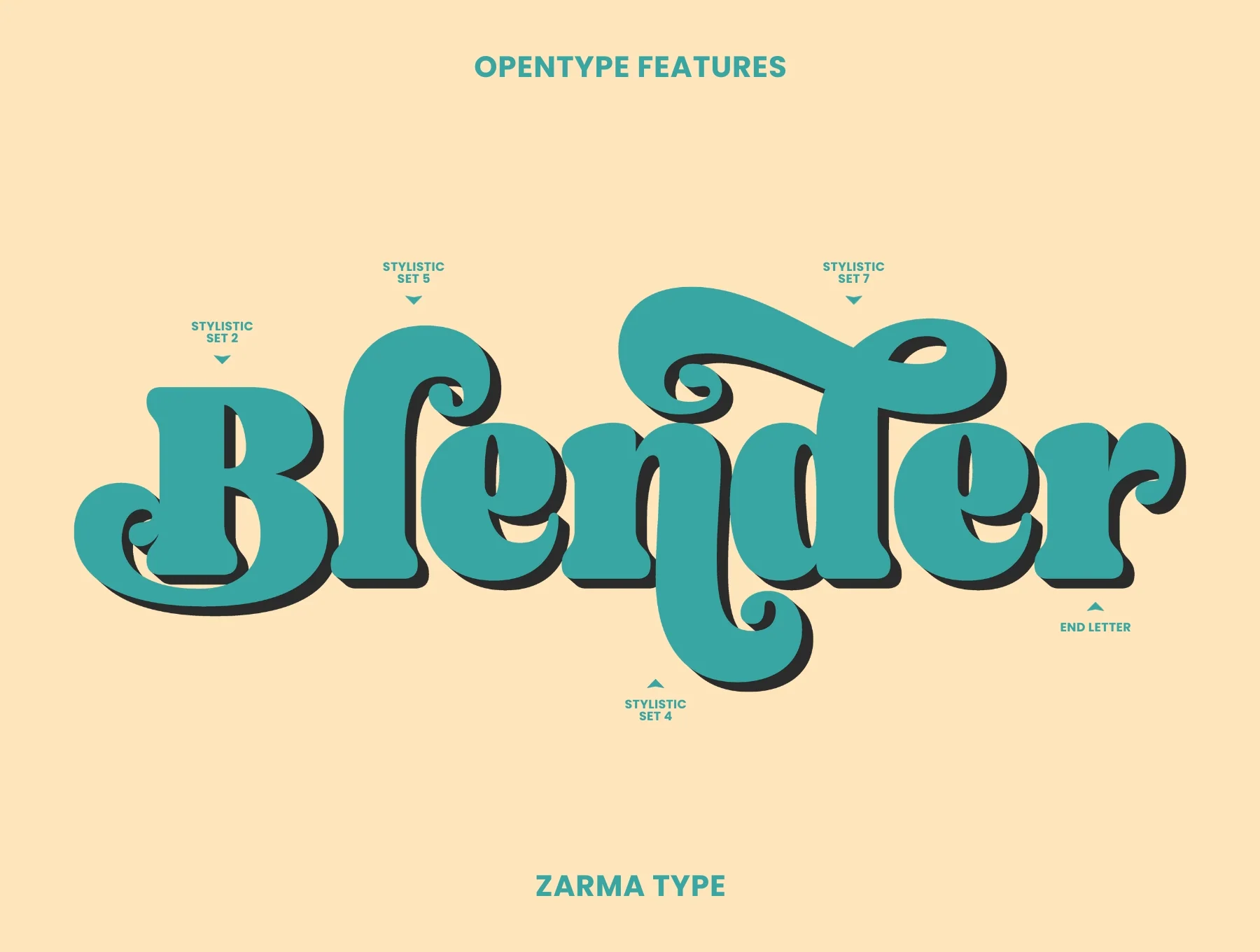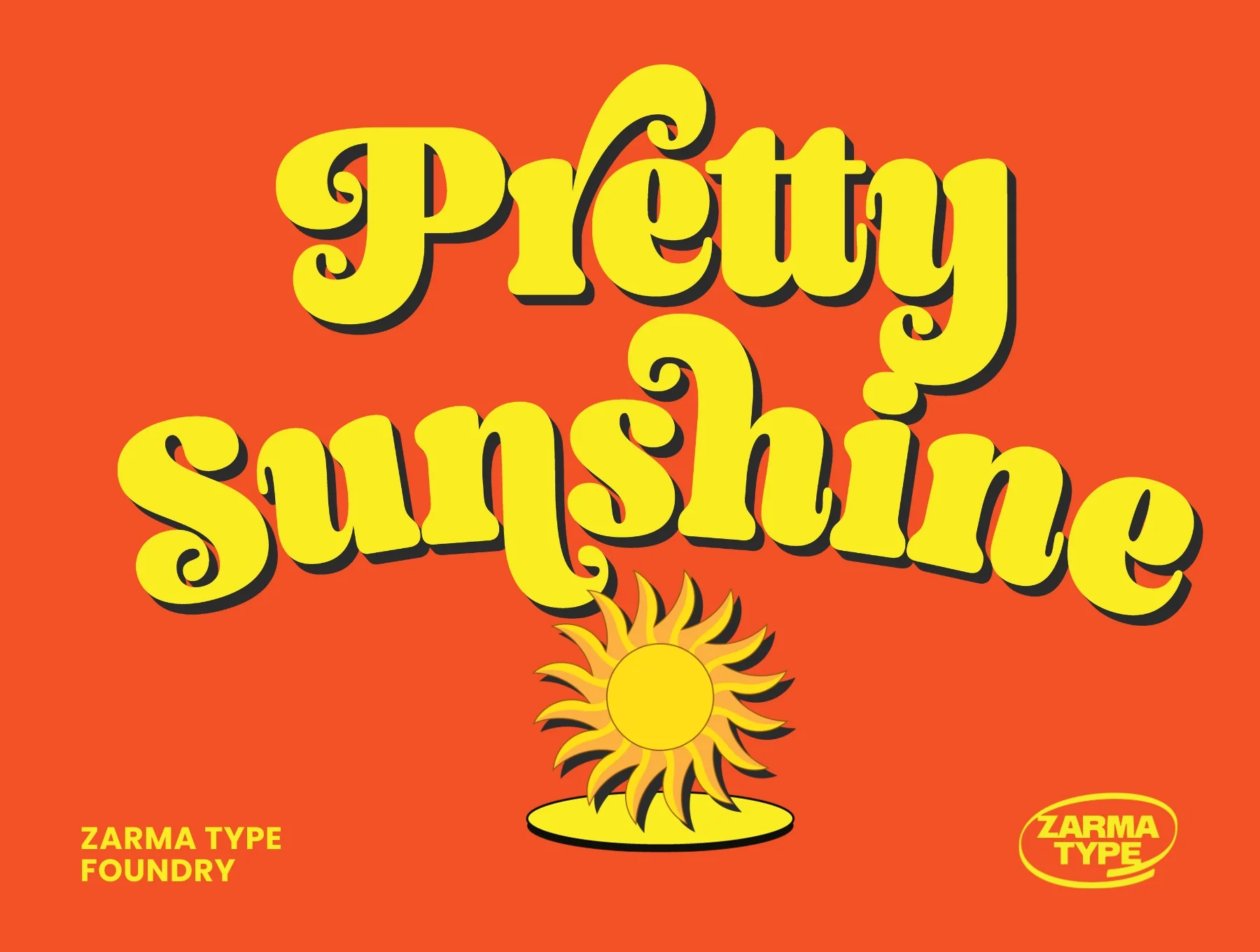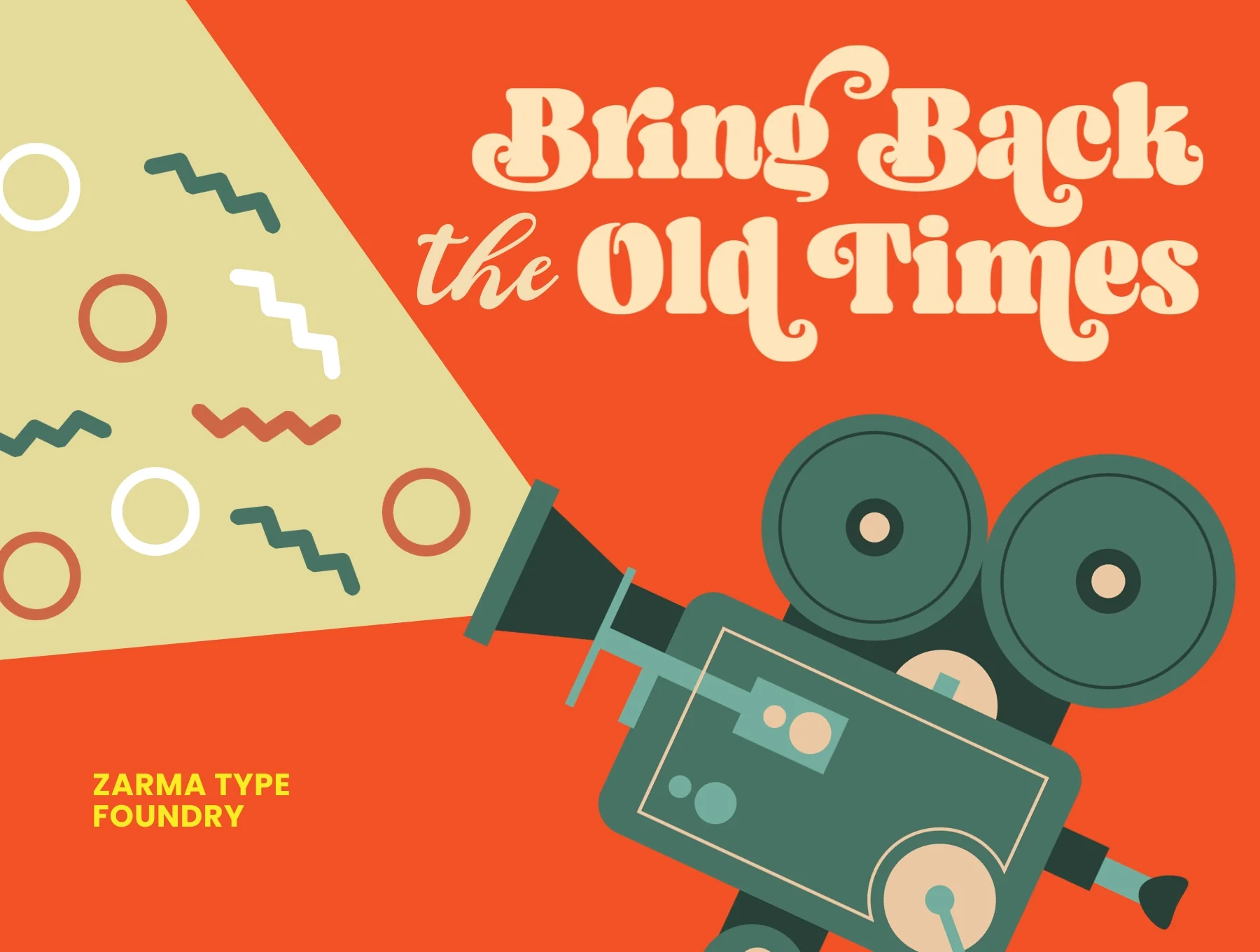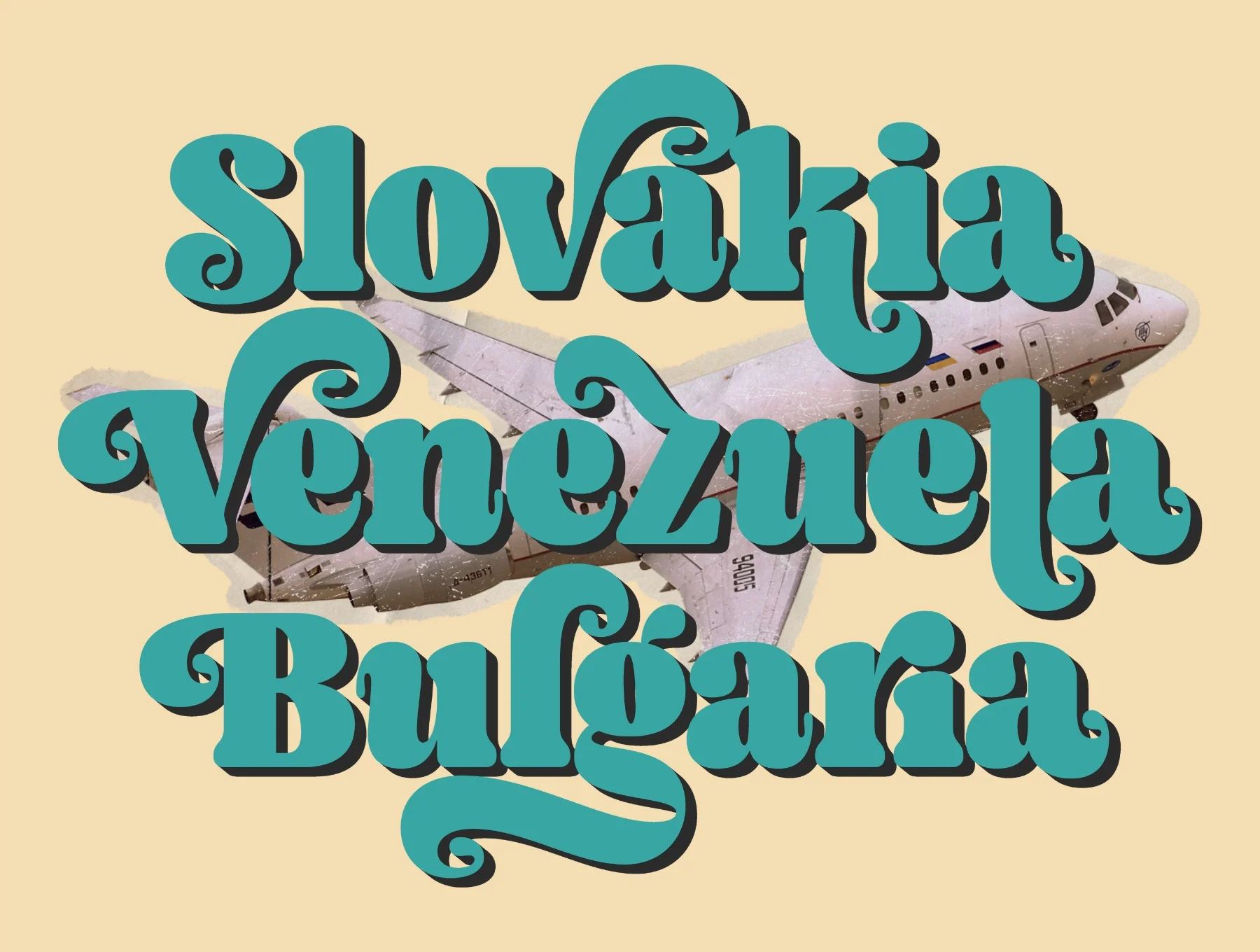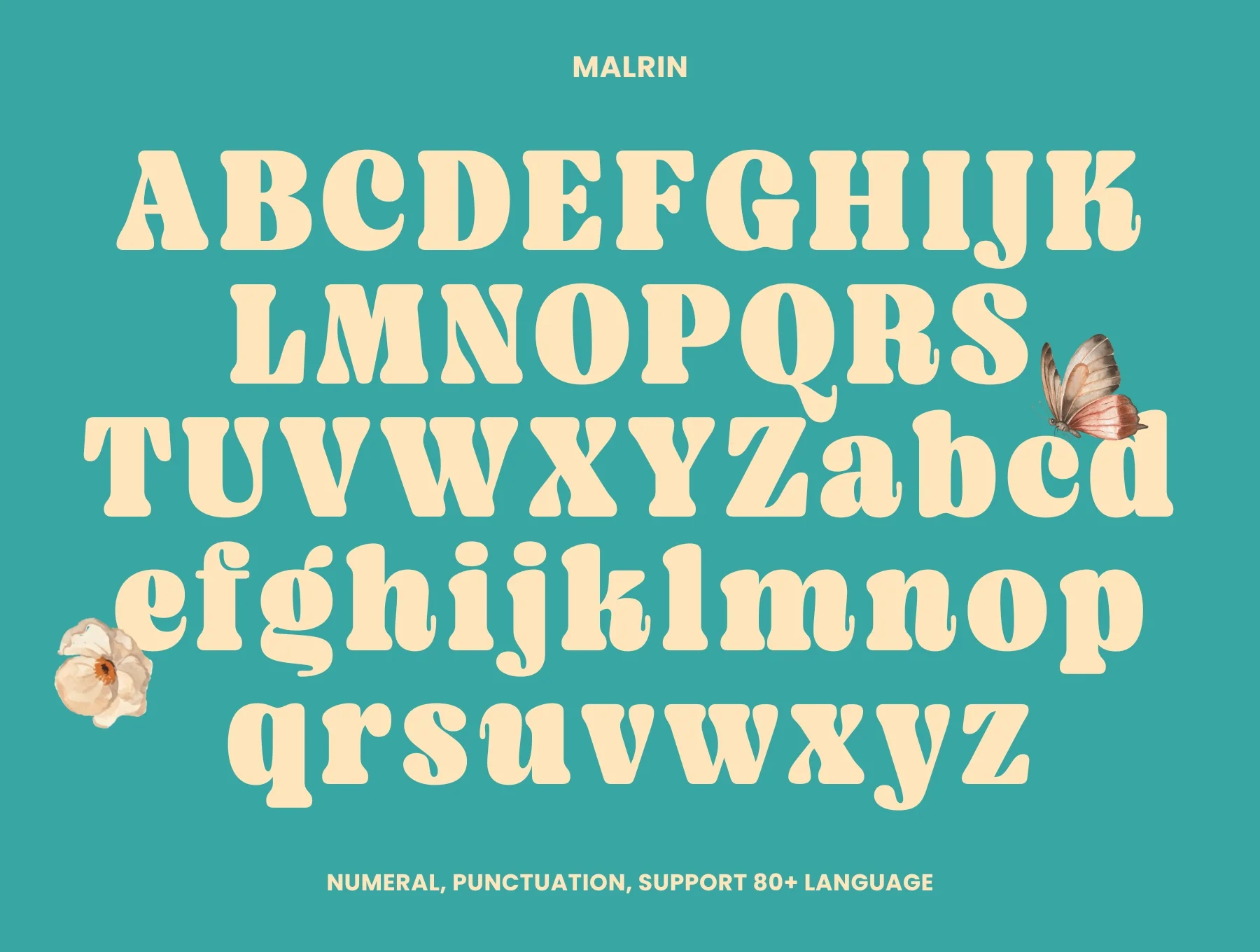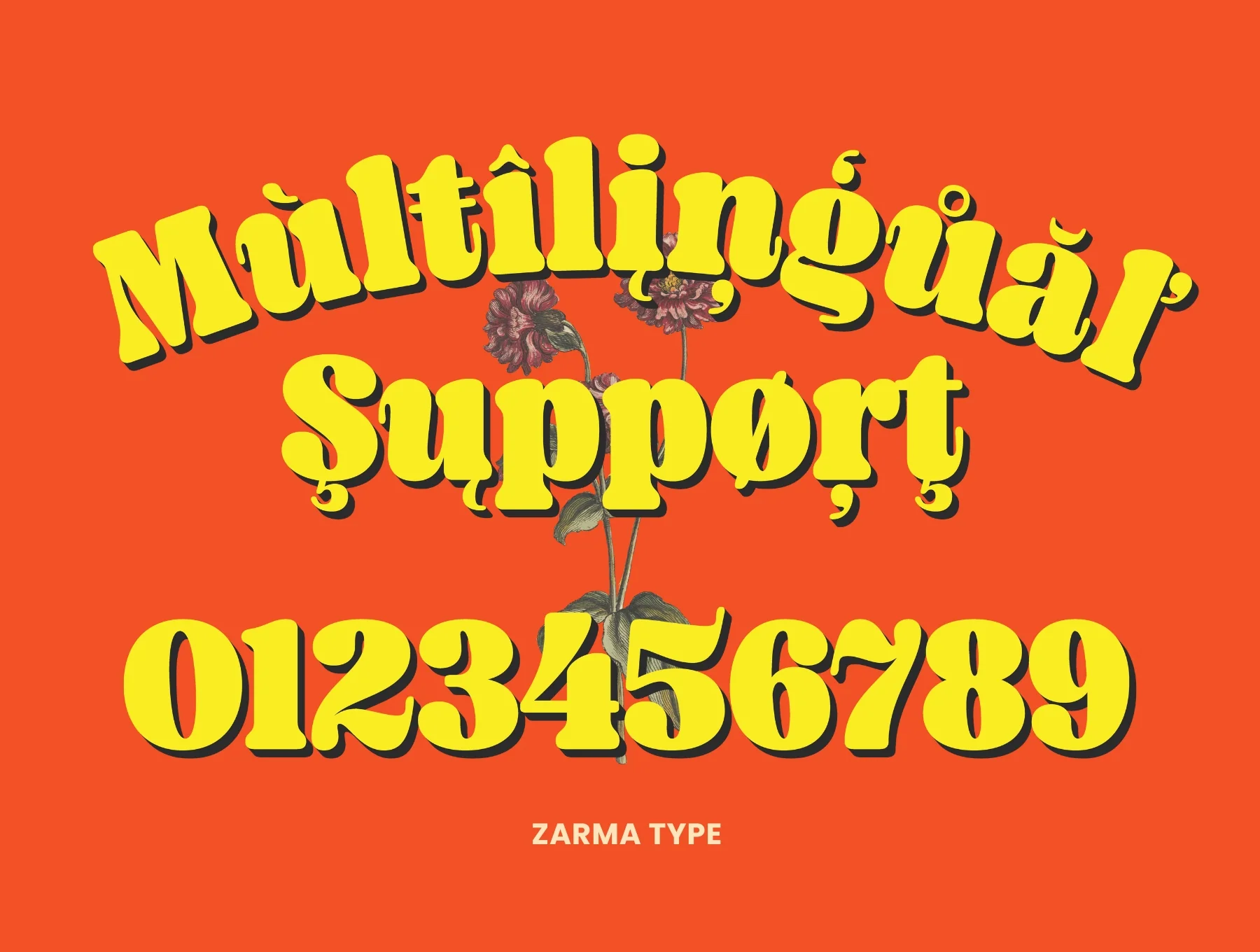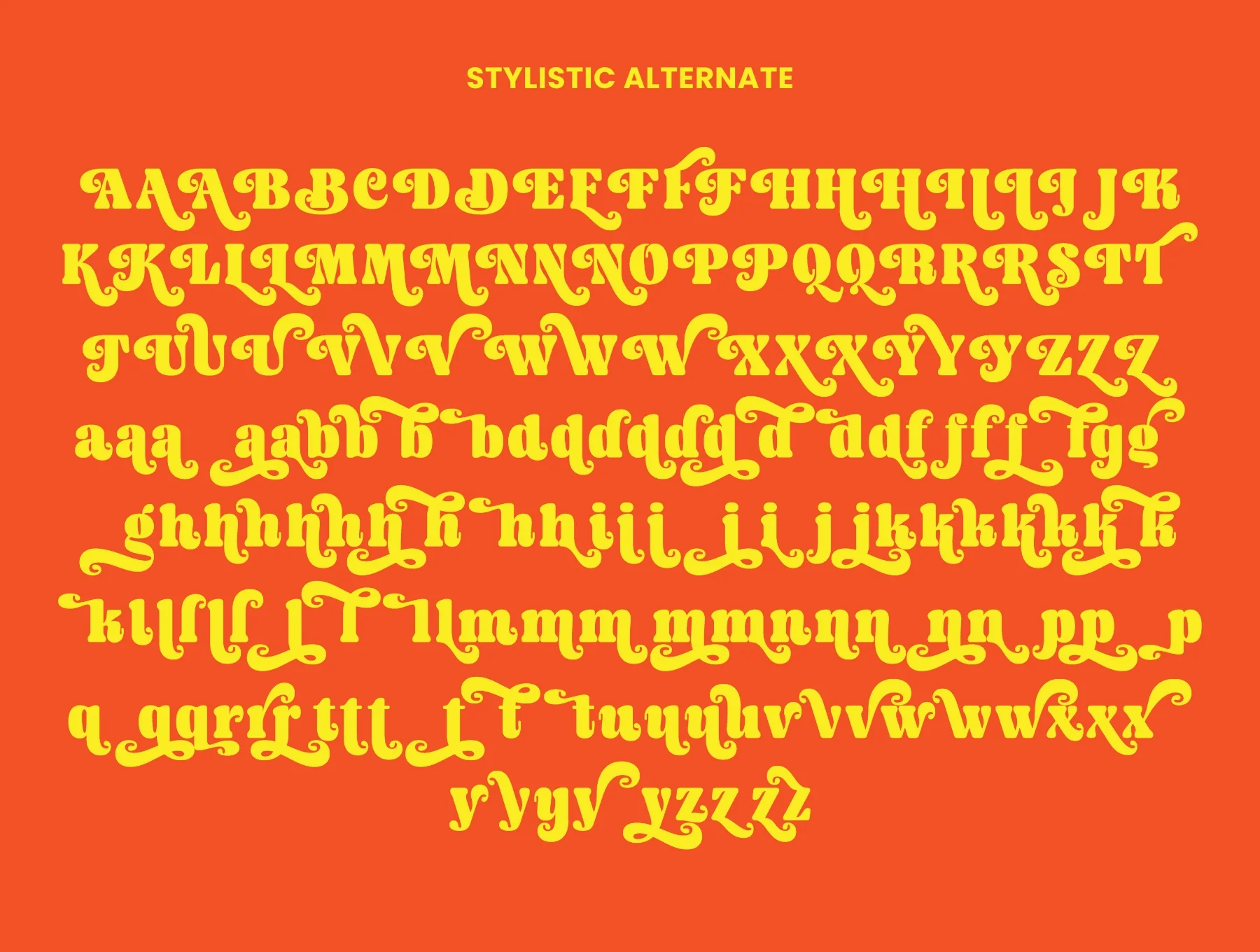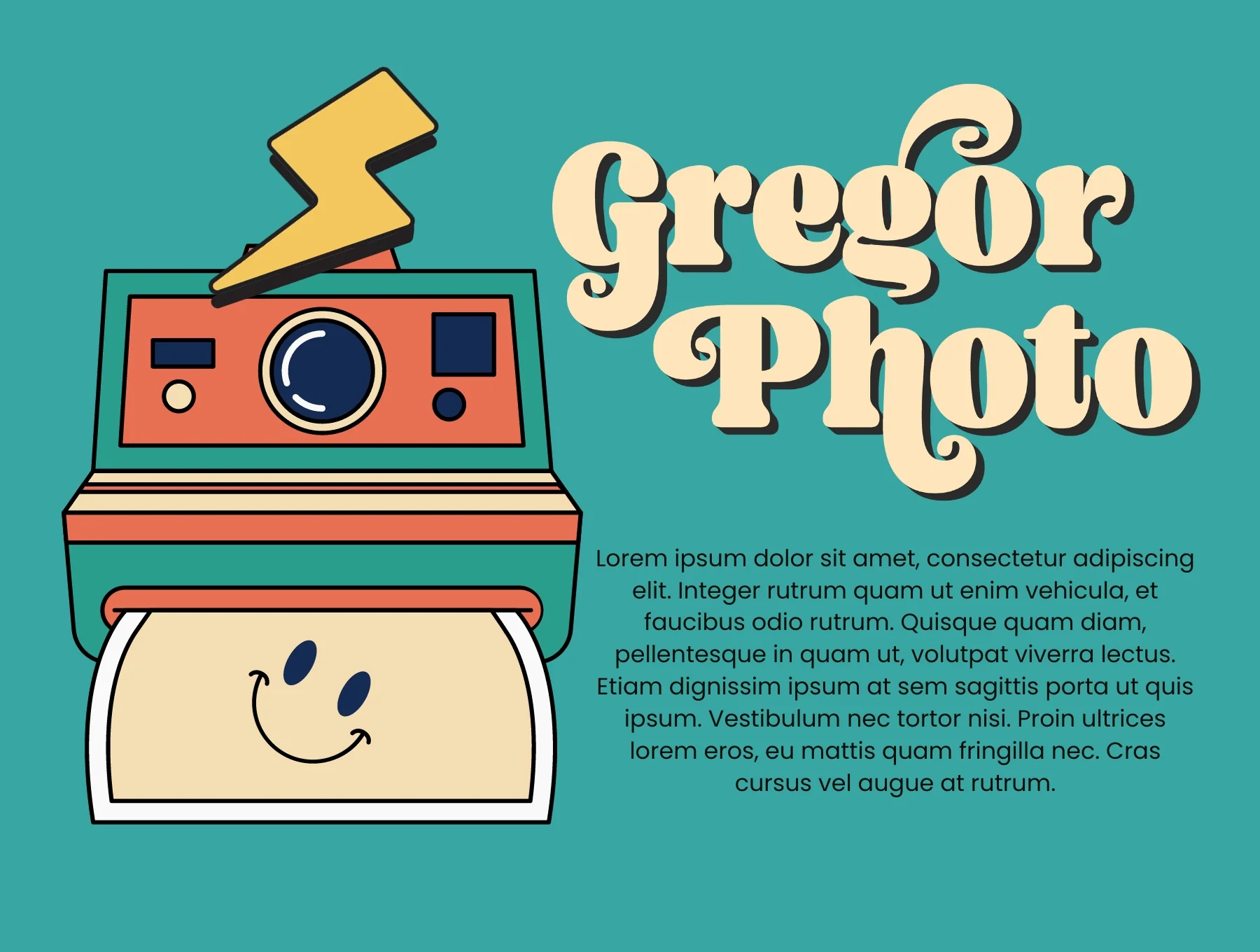
Malrin Font
Striking Display Font
Caps, small letters, numbers and punctuation
Alternate styles with ligature options
Broad multilingual compatibility
Malrin is a striking retro font inspired by classic fatface lettering, blending funky groove with subtle psychedelic flair. It includes 180+ alternates and ligatures, making it ideal for logos, displays, headlines, posters, apparel, ads, and branding that need a bold vintage character.